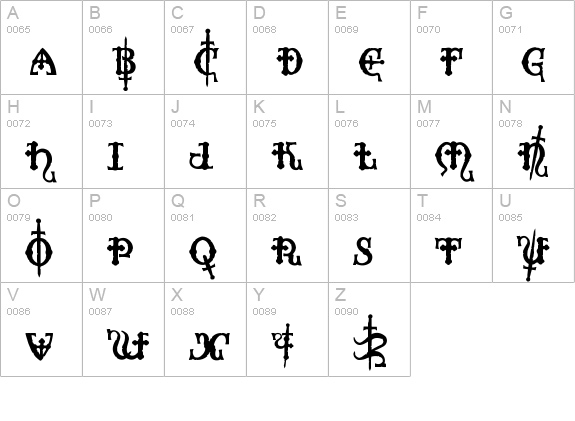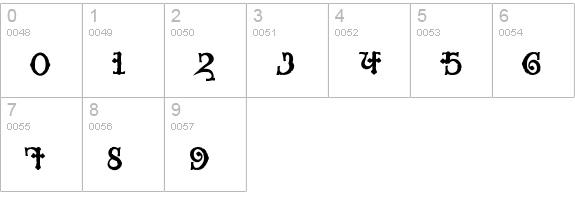
Crusades Font Details
Crusades font is a captivating typeface that exudes elegance and sophistication. With its intricate and ornate design, this font is perfect for adding a touch of medieval charm to your projects. The Crusades font is versatile and can be used for a wide range of design applications, from invitations to branding materials. What makes Crusades font even more appealing is that it is available for free download at FontsMarket.com. This means that you can easily access this stunning font and incorporate it into your projects without any hassle. Whether you are creating a vintage-inspired design or looking to add a historical flair to your work, Crusades font is the perfect choice. Download it today and elevate your designs with this exquisite typeface.